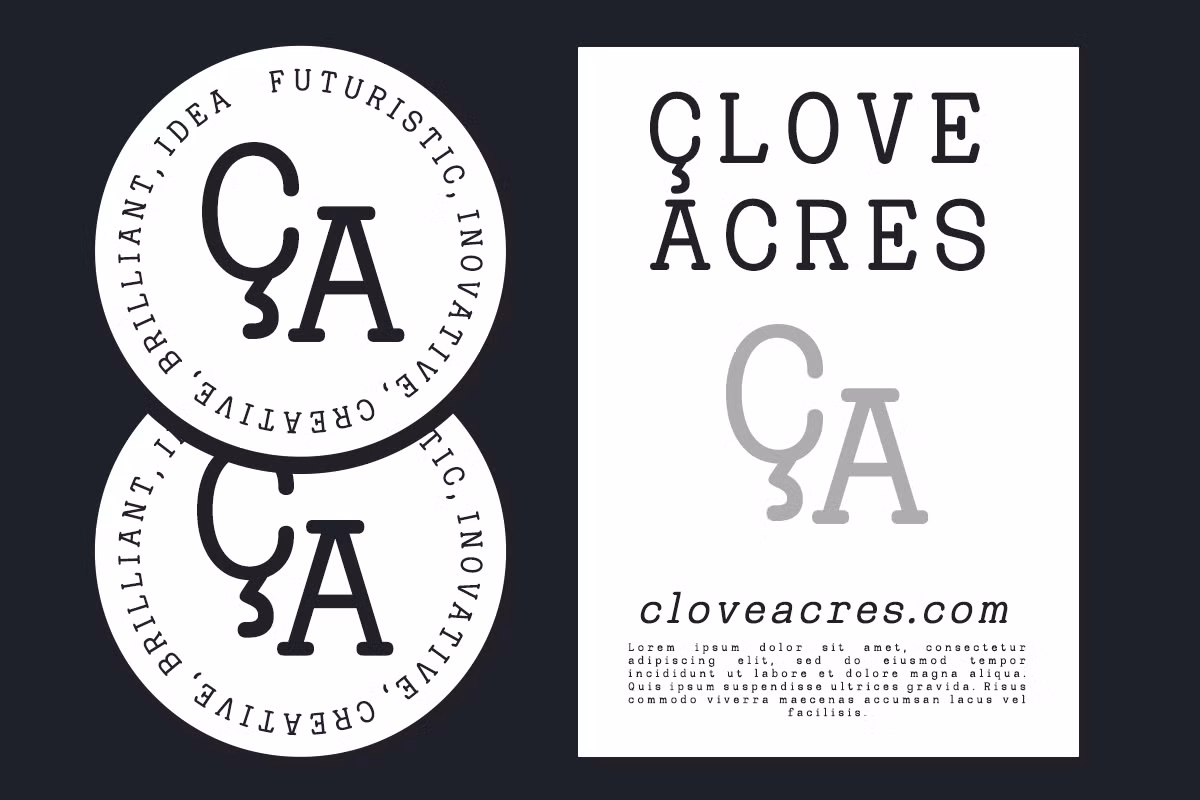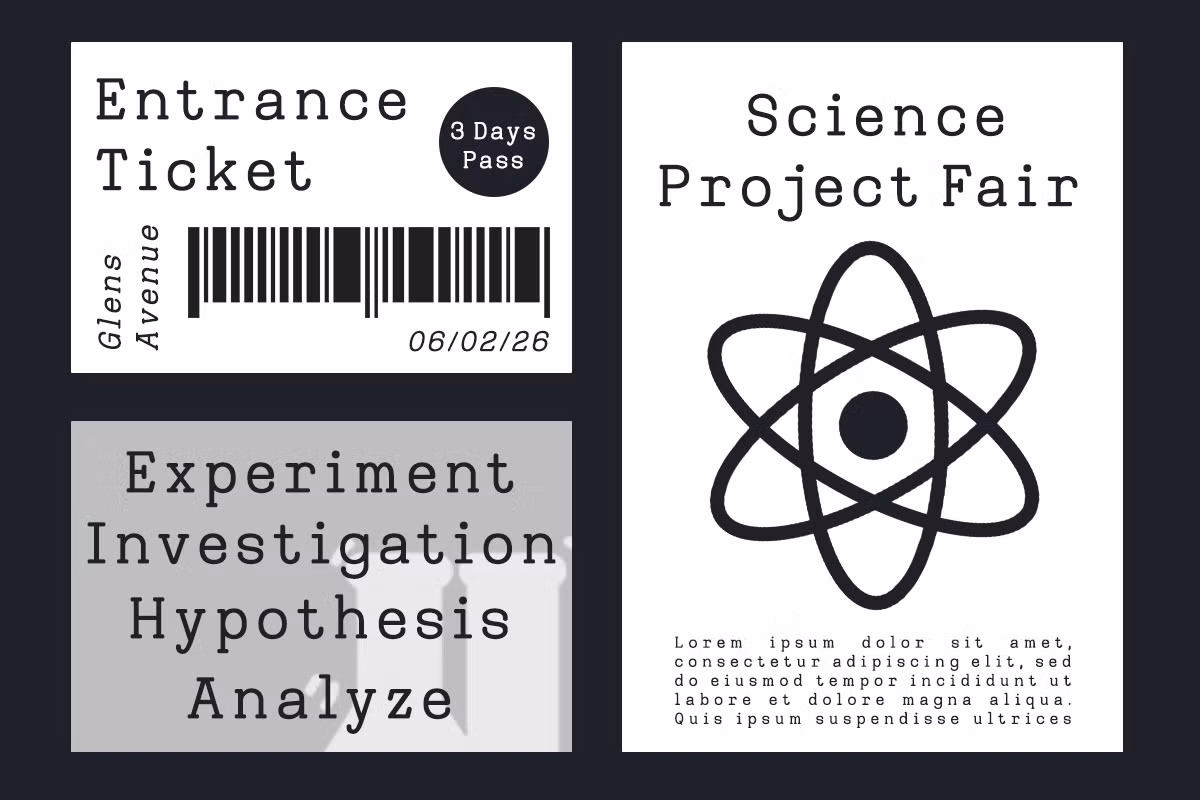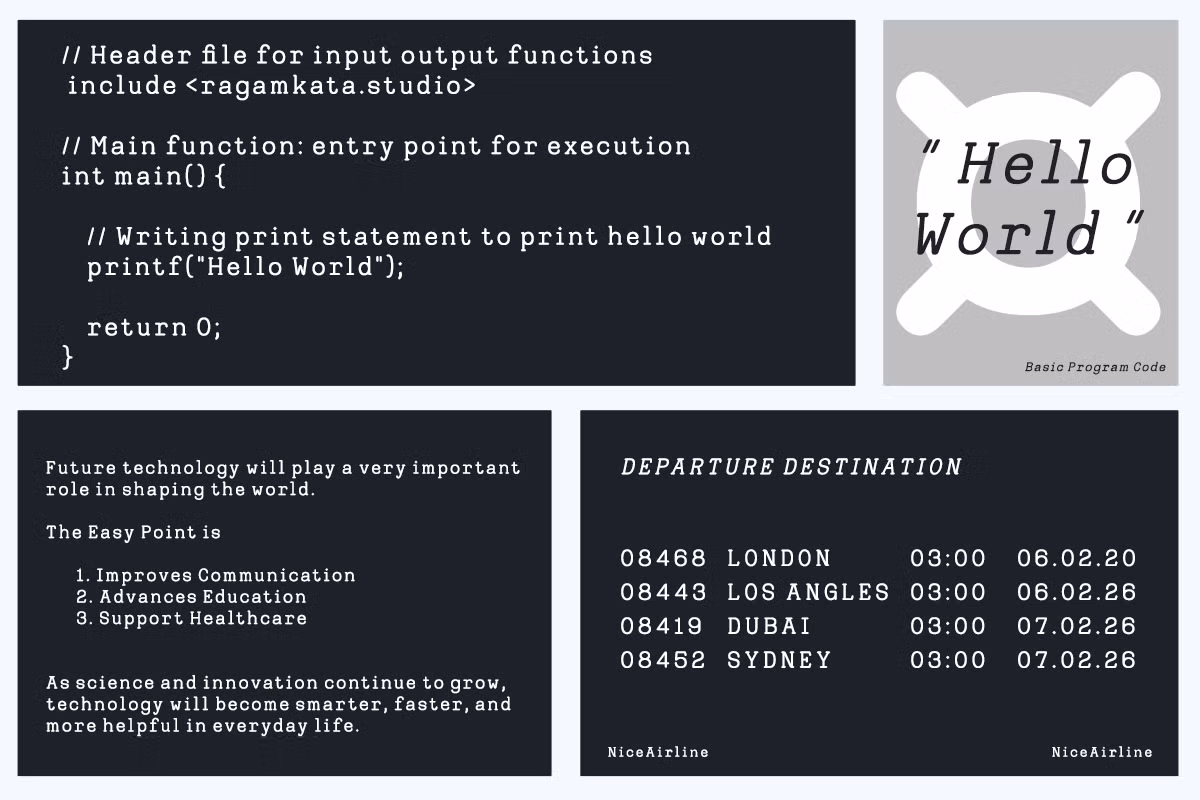
Introduction to Heaven Mono
Heaven Mono is more than just a font – it’s a modern take on the classic monospace serif style. What makes it special is how it balances technical precision with a touch of elegance. The designer has clearly paid attention to every detail, giving it proportions that are just right and details that are sharp and clear. The little serifs added to the letters give it a unique rhythm that feels both fresh and timeless. This font is perfect for a wide range of users, from designers and developers to creative studios and anyone making digital content.
It’s a great tool for anyone looking to create something modern and stylish. With its balanced look and feel, Heaven Mono is a great choice for anyone who wants a font that is both functional and beautiful. Whether you’re working on a new project or just need a font that can keep up with your creative vision, Heaven Mono is definitely worth considering. Its versatility and style make it a great addition to any design toolkit.
The way Heaven Mono looks is a perfect blend of organization and imagination. It has strong, consistent shapes that make it great for lots of different uses. Adding serifs gives it a touch of sophistication, making each letter unique and stylish. Every letter is carefully made to stand out, whether you’re using it on a screen or on paper.
This font is designed to make your messages look better, with a clean and confident style that fits in with modern design trends. It’s a great choice when you want to make a good impression.
Balanced Proportions
Heaven Mono is a great font because it’s easy to read and looks good. Each letter is designed to fit nicely in its own space, so it doesn’t overwhelm you when you’re reading a lot of text or looking at code. The way the letters are the same height and the lines are spaced just right makes everything clear, so you can get your point across without any confusion.
Serif Accents
The little details in Heaven Mono, like its subtle serifs, make a big difference. Most monospace fonts can look a bit cold and robotic, but the serifs in Heaven Mono add a warm and classy feel. This makes it a great choice for lots of different projects, like branding and editorial designs, where you want to add a bit of sophistication.
Character Sets
Heaven Mono has a big collection of characters, including all the regular Latin letters, plus lots of symbols and numbers. This means you can use it for lots of different languages and situations, and it will still look great and consistent.
Multilingual Support
Heaven Mono has a big advantage – it supports many languages. This makes it perfect for projects that involve people from all around the world, as it can handle different languages and scripts. So, if you’re creating something for a global audience or using multiple languages in your project, Heaven Mono is a great choice because it shows your text exactly as it should be, and it looks great too.
It’s really useful for international projects, and it helps you communicate your message clearly, no matter what language you’re using.
Use Cases
Heaven Mono is really good at lots of things, so it can be used in many different ways. Here are a few examples of what it can do:
- Coding Interfaces: Its monospace nature makes Heaven Mono perfect for coding environments, where clarity and precision are paramount.
- UI/UX Design: This typeface can enhance user interfaces with its clean lines and structured appearance, providing a seamless experience for users.
- Branding Systems: Heaven Mono can be utilized in branding projects, offering a modern touch that communicates professionalism and creativity.
- Editorial Layouts: Its elegant design makes it suitable for editorial work, where text needs to be both engaging and readable.
Heaven Mono is a great font to use for posters and packaging because it gives them a modern look that catches the eye. When you use this font, your designs will really stand out from the rest on store shelves.
To maximize the impact of Heaven Mono in your designs, consider pairing it with complementary typefaces. Here are a few suggestions:
- You can pair Heaven Mono with a simple sans-serif font like Helvetica or Arial for a look that’s both modern and elegant.
- To give your design a more elegant look, try pairing Heaven Mono with a traditional serif font like Georgia or Times New Roman.
- Incorporate a bold display typeface for headings or highlights, such as Futura or Montserrat, to create a striking visual hierarchy.
Heaven Mono is a great font that mixes precision and style. It has a special rhythm that looks good in many design projects. You can use it for coding, making user interfaces, or creating brands – it works well for all these things.
The font is clear and looks strong, making it a great tool for designers and digital creators who want to make their work stand out. Its unique look and versatility make it very useful.